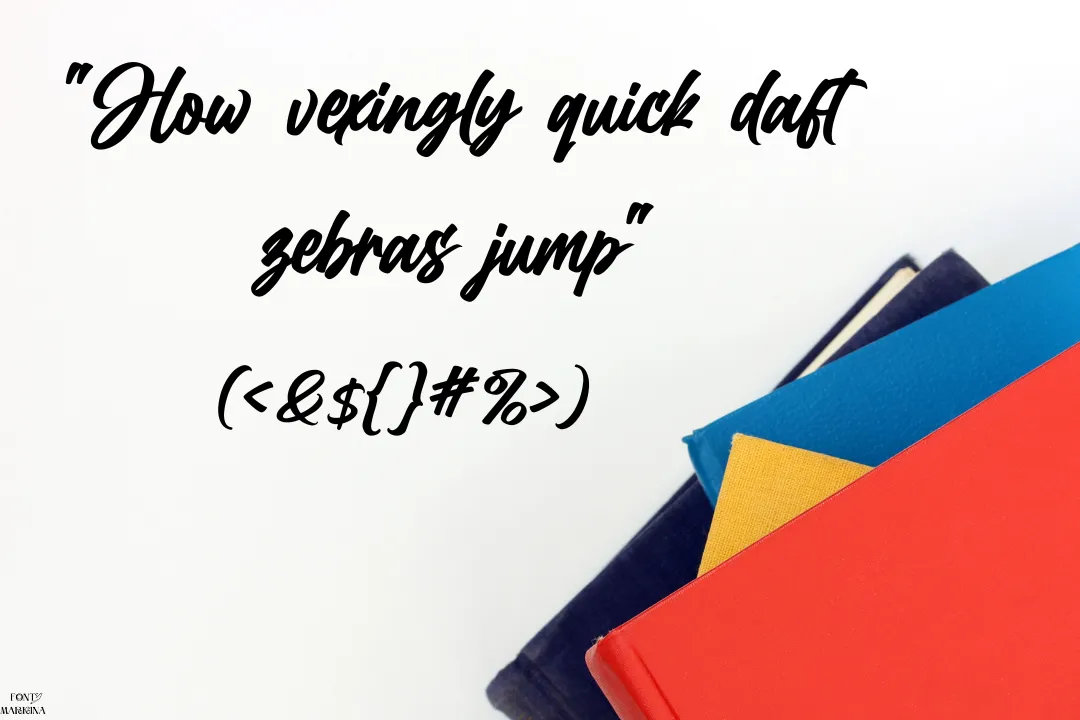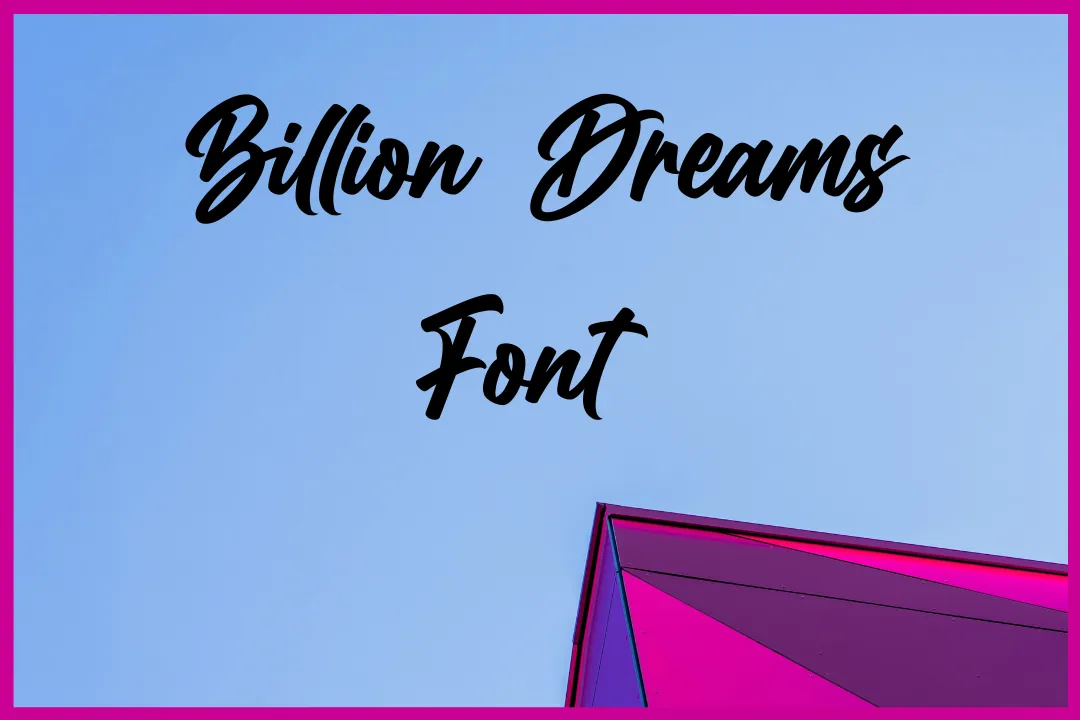
Billion Dreams Font: An Overview
Billion Dreams is an expressive, handwritten script font known for its elegant, calligraphic style. This font was designed by Mans Grebäck, a prominent Swedish designer known for producing striking, versatile typefaces.
With its distinct, sweeping brushstrokes, Billion Dreams works well in creating high-impact visual pieces such as logos, invitations, and packaging.
Uses of Billion Dreams Font
Billion Dreams is well-suited for a range of creative applications, particularly in branding and visual identities. Its bold and flowing lines make it an ideal choice for logos and headline texts.
This font is also widely used in wedding invitations, posters, and greeting cards, where its refined, cursive style can enhance an elegant aesthetic.
This font has amazing pairing quality and can be paired with sanskrit font and make stunning projects. This typography can also be used in the outcome of digital signs, infographics, and social media pictures.
The font’s swashes and stylistic alternates offer flexibility, making it a valuable tool for designers looking to customize text layouts with an artistic flair.
Who designed the Billion Dreams Font?
It is a handwritten font designed by the graphic and type designer, Mans Greenback.
What type of font is Billion Dreams Font?
Where can I utilize the Billion Dreams Font?
The font can be used for personal projects such as creating graphics for social media or designing t-shirts. The possibilities are endless, and the font can be used in any application